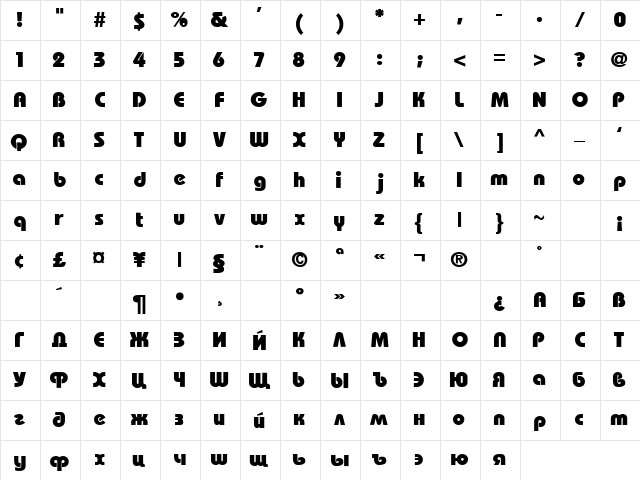
BauhausHeavyC Regular
Design Context for BauhausHeavyC Typeface
BauhausHeavyC offers clean, dependable letterforms without strong stylistic allegiance, making it a practical choice for designers who need flexibility.